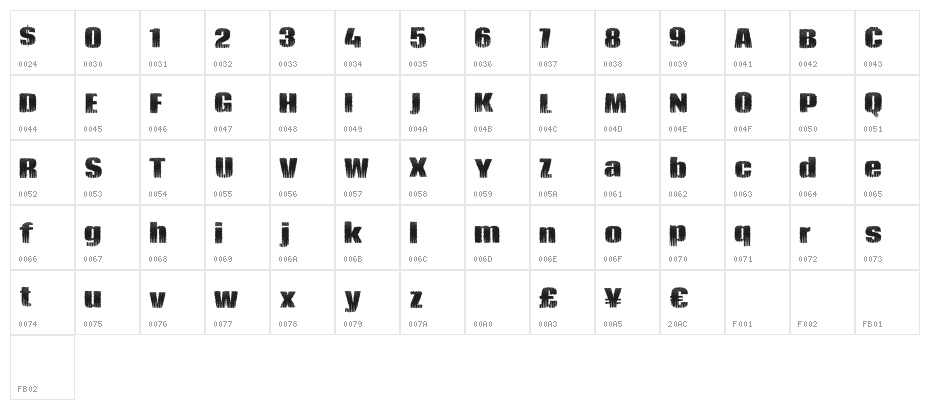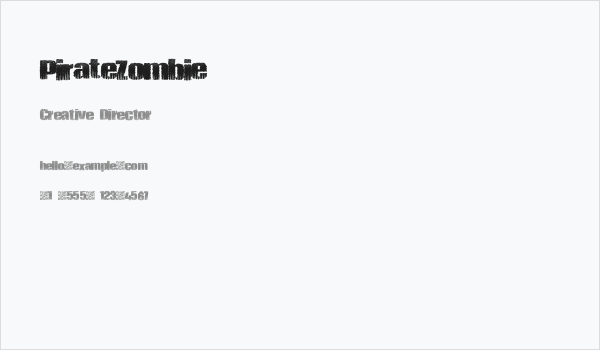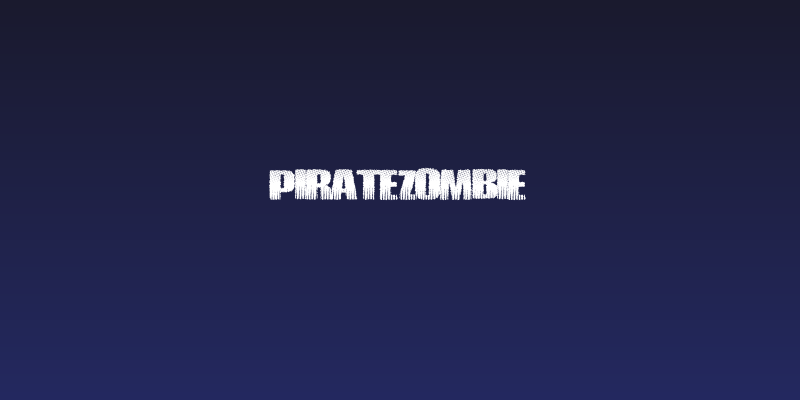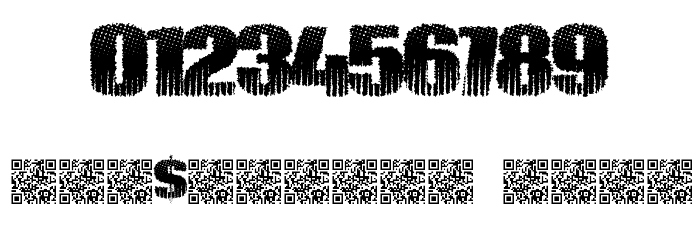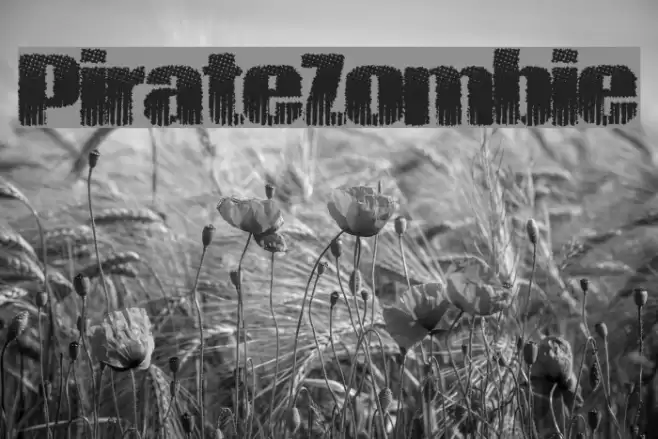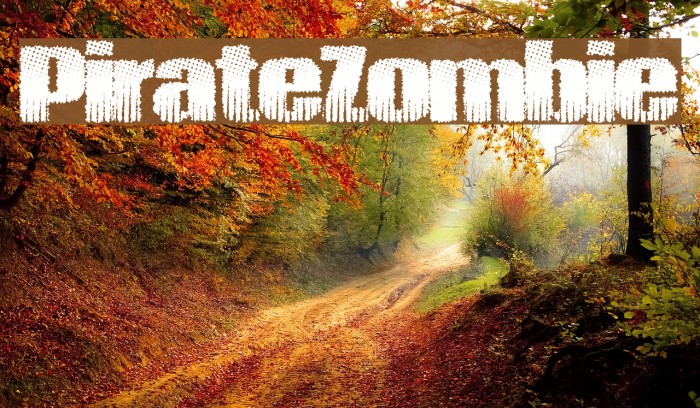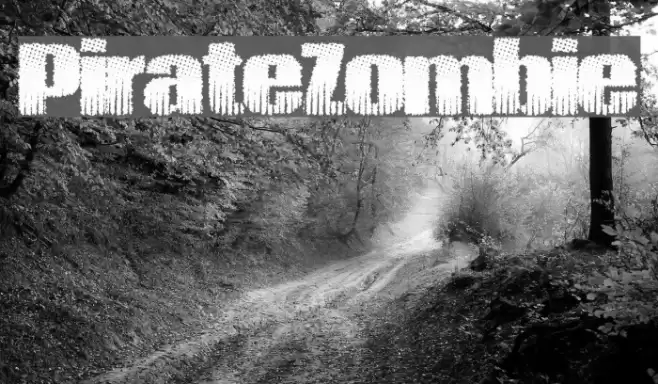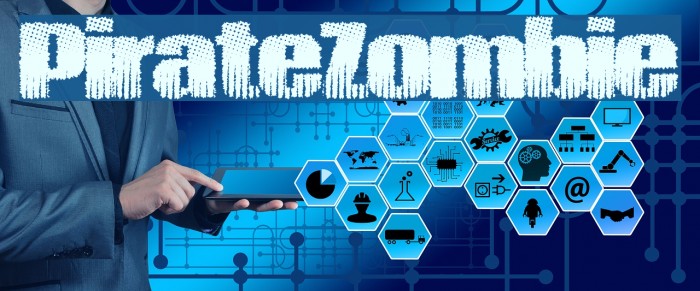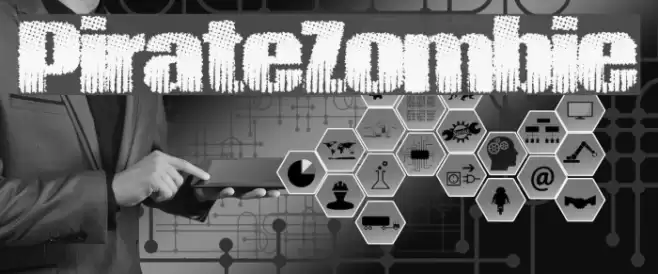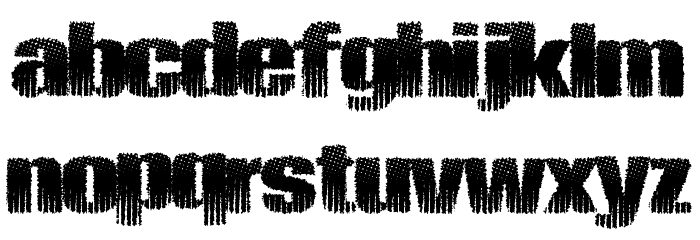
PirateZombie Font
PirateZombie Description
This font features a bold and rugged design with a distressed texture that gives it a gritty, weathered appearance. The characters are thick and heavy, with a unique pattern that resembles worn-out fabric or eroded surfaces. The uppercase and lowercase letters maintain a consistent style, while the numbers and special characters follow the same textured theme. This font's distinctive look makes it ideal for projects that require a bold, eye-catching statement with a touch of vintage or rebellious flair.
| Overall Style | Vintage, Edgy |
| Proposed Projects | Ideal for posters, album covers, video game titles, and branding that requires a bold, edgy look. |